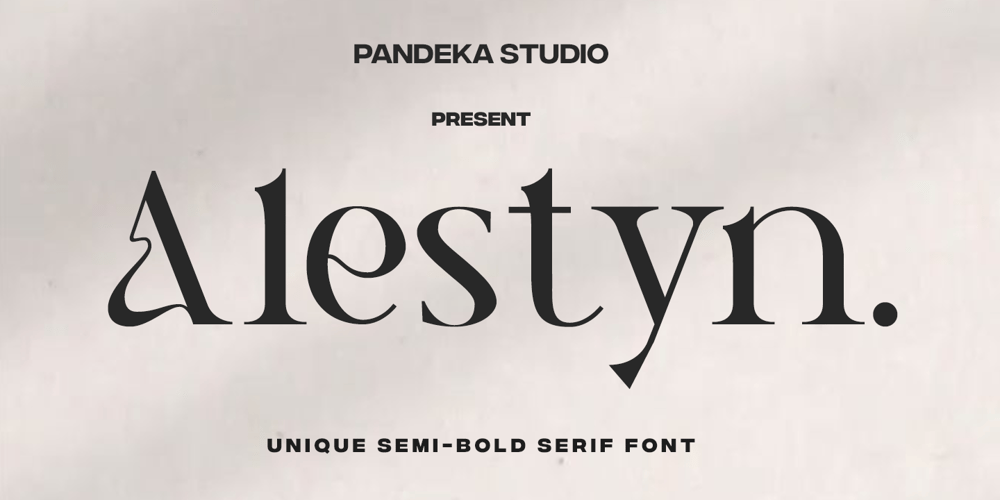
Alestyn Font Family was designed by Sagara Nararya and published by Pandeka Studio. Alestyn contains 1 styles and family package options. Introducing Alestyn – a sophisticated serif typeface that effortlessly combines elegance with a contemporary flair. With its graceful lines and modern aesthetic.Alestyn adds a touch of femininity and class to any design project, making it the ideal choice for those seeking both style and sophistication.Perfect for greeting cards, packaging, brand identities, posters, and more, Alestyn ensures your designs stand out with an eye-catching and trendy appeal. Its versatile nature allows you to play and experiment, bringing a unique and polished look to all your creative endeavors.What’s you get? Alestyn Main Files Uppercase & Lowercase Letters Unique letterforms Works on PC & Mac Numeral & Punctuation Multilingual Support Currencies Simple Installations Instructions (Access special characters in all apps, even in Cricut Design) Accessible in the Adobe Illustrator, Adobe Photoshop, Microsoft Word even work on Canva PUA Encoded Characters Fully accessible without additional design software. Feel free to follow, like and share. Thanks so much for checking out my shop!Have a great day!Pandeka Studio